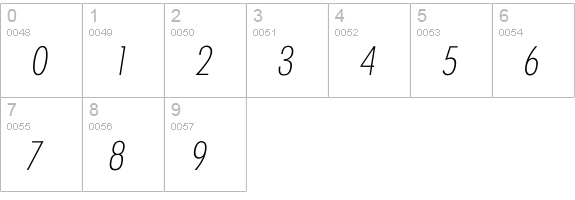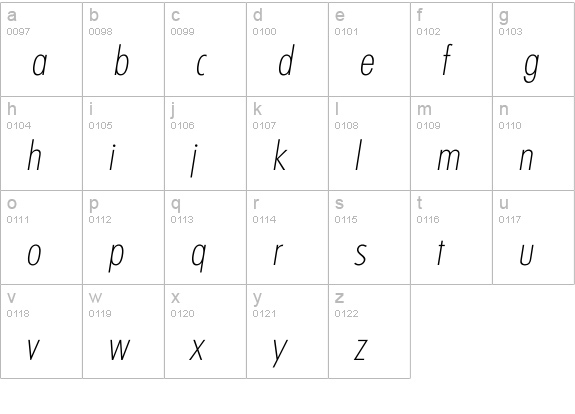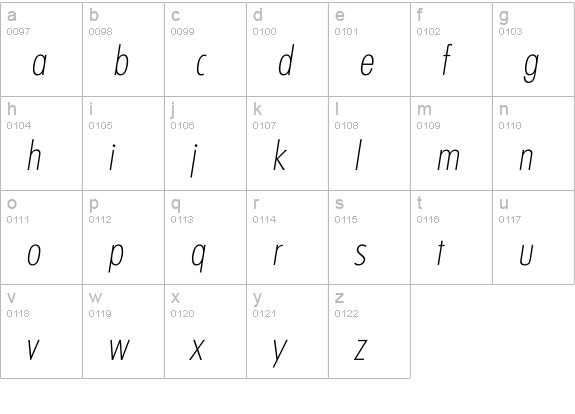
Introducing Iclimerick Xlight, a font that effortlessly combines elegance and modernity. With its delicate lines and clean curves, this typeface exudes sophistication, making it the perfect choice for any project that requires a touch of refinement. Iclimerick Xlight captures attention with its subtle strokes and graceful letterforms. Its slim and slender design adds a sense of lightness and airiness to any text, creating a harmonious balance between style and readability. Whether used for headers, body text, or even logos, this font effortlessly elevates the overall aesthetic of any design. What sets Iclimerick Xlight apart is not just its stunning visual appeal, but also its accessibility. This font is freely available to download at FontsMarket.com, making it a valuable asset for designers, students, and anyone looking to enhance their creative endeavors without breaking the bank. By offering this font for free, it opens up a world of possibilities for aspiring artists, allowing them to experiment, create, and express their unique visions without any limitations. With a comprehensive character set that includes uppercase and lowercase letters, numerals, punctuation, and special characters, Iclimerick Xlight provides versatility for various design needs. Its seamless compatibility with both digital and print mediums ensures that your work will look flawless and professional across all platforms. Whether you're designing a logo for a high-end fashion brand, crafting a wedding invitation, or creating a captivating book cover, Iclimerick Xlight is the perfect font to add an extra touch of elegance and sophistication. Download this font for free at FontsMarket.com and let your creativity soar to new heights.